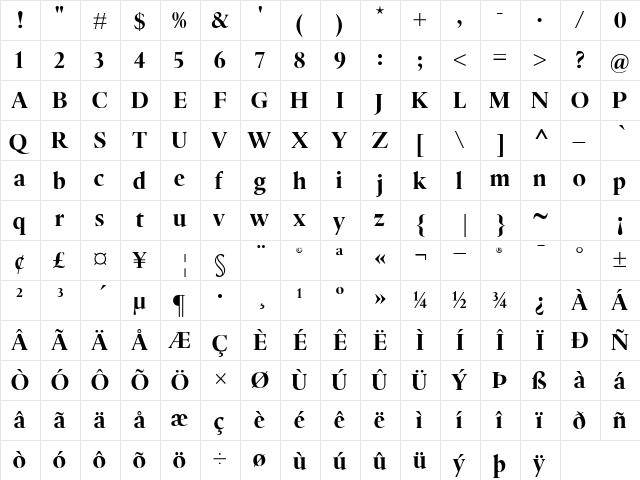
Nicholas Bold
Design Context for Nicholas Typeface
Nicholas offers clean, dependable letterforms without strong stylistic allegiance, making it a practical choice for designers who need flexibility. The heavy weight commands attention and anchors typographic hierarchies.